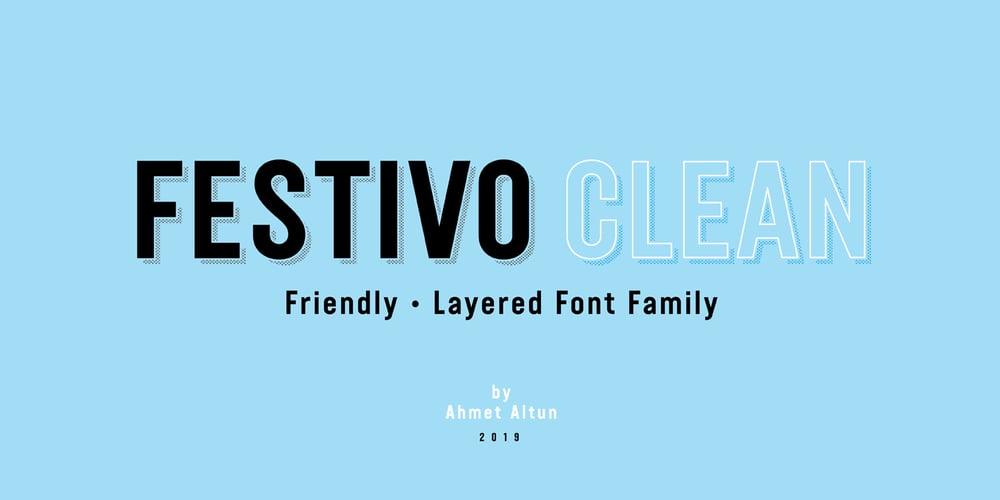
Festivo Clean Font Family was designed by Ahmet Altun and published by Ahmet Altun. Festivo Clean contains 18 styles and family package options. Festivo Clean is the clean version of the popular fonts Festivo Letters and Festivo lowercase Font Families. Festivo fonts are easy to use. After copying the text layer you created with Ctrl + C, the layers overlap with Ctrl + F or Ctrl + B paste command. You can achieve infinite color options by applying the desired color to the layers. The Festivo Clean family also includes three-dimensional fonts. In this version, the language support is increased. Festivo Clean would be a great choice for packaging designs, banners, posters and all other graphic designs.